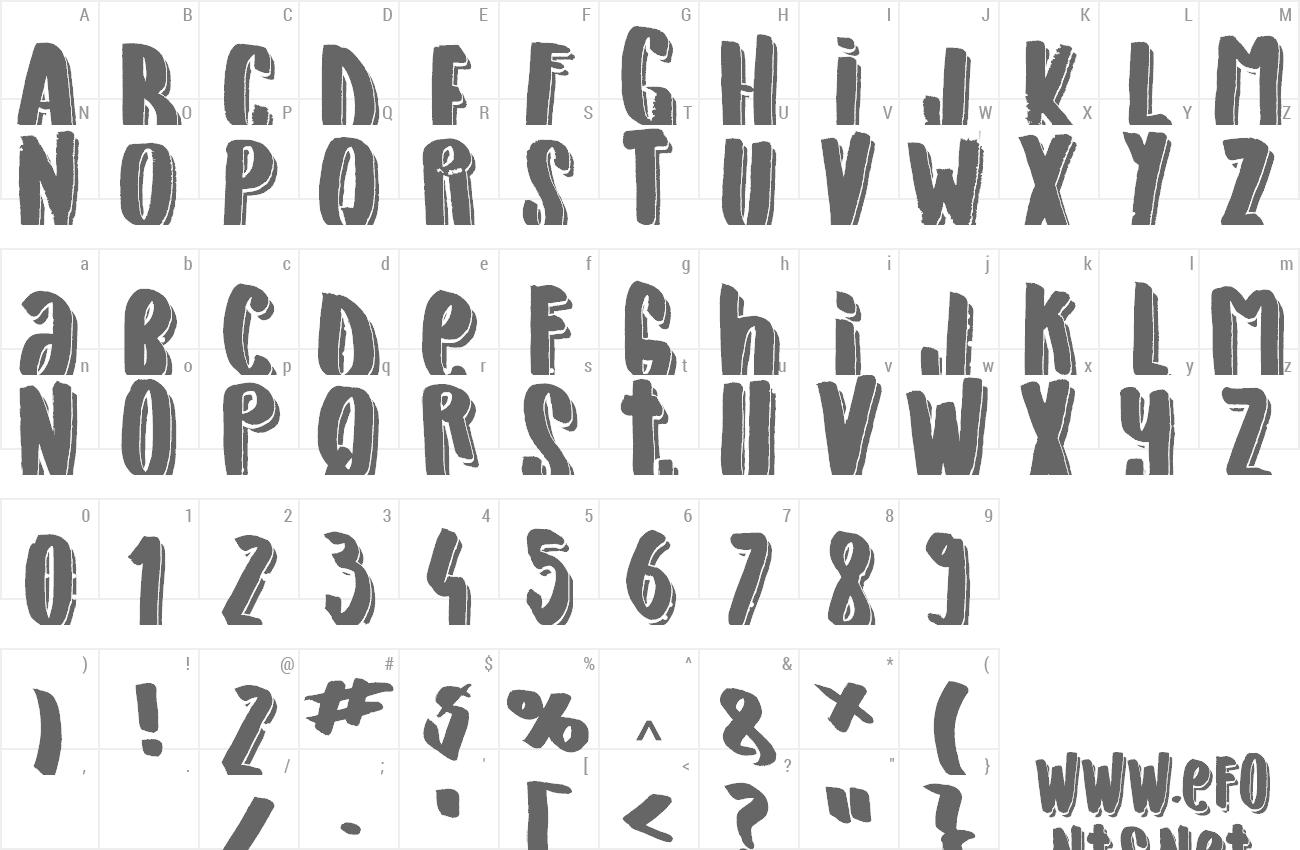
| Font name: | Originals is Out |
| Author: | Leonard Posavec - LeoSupply.co |
Originals Typeface is a handdrawn playful display font. The font can be used for many purposes but looks great when put on signs, shirts or cards. Also, it works perfect on fresh summer theme designs. If you want to use it in COMMERCIAL PURPOSE please BUY LICENCE ON: http://www.leosupply.co |